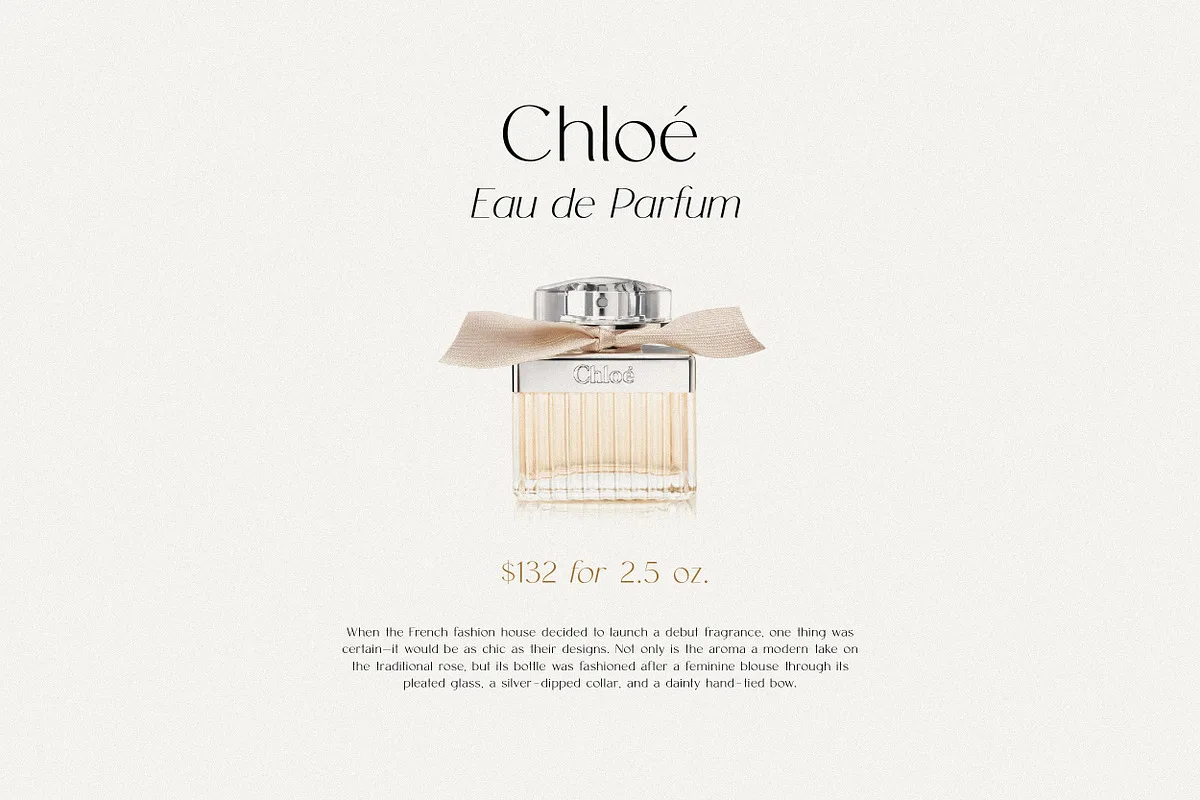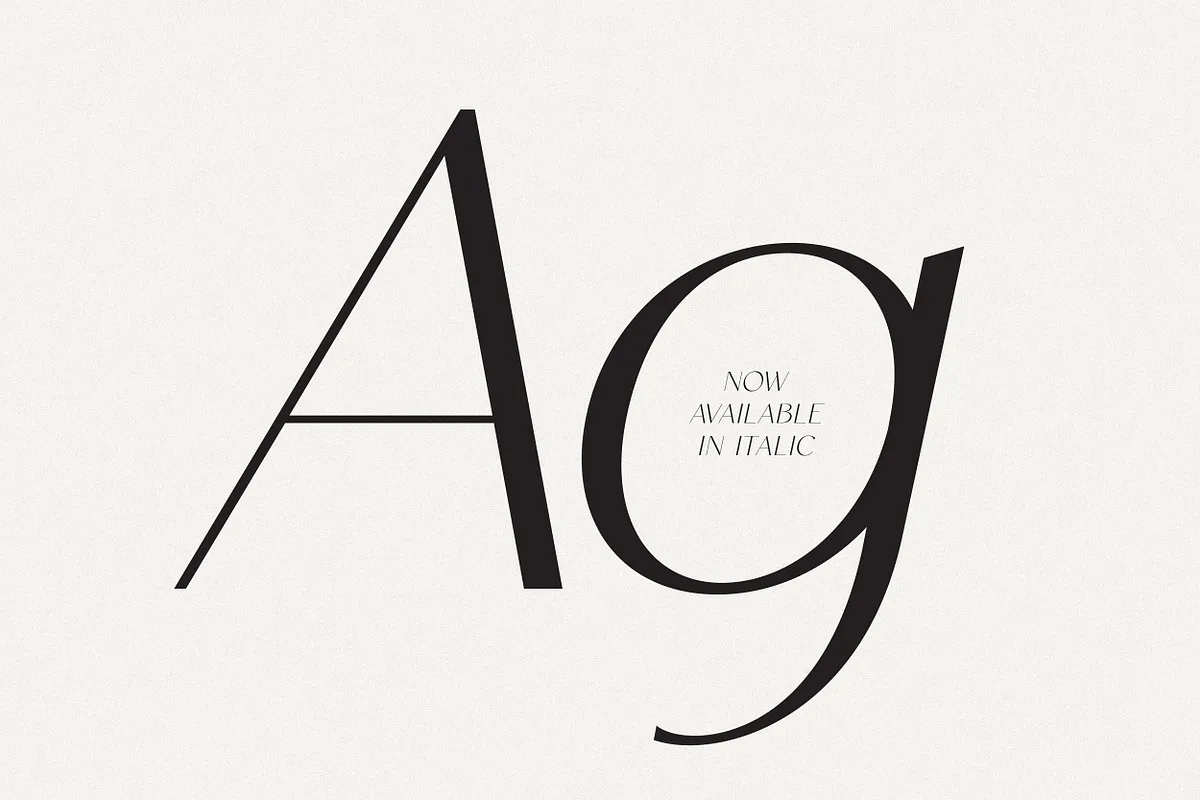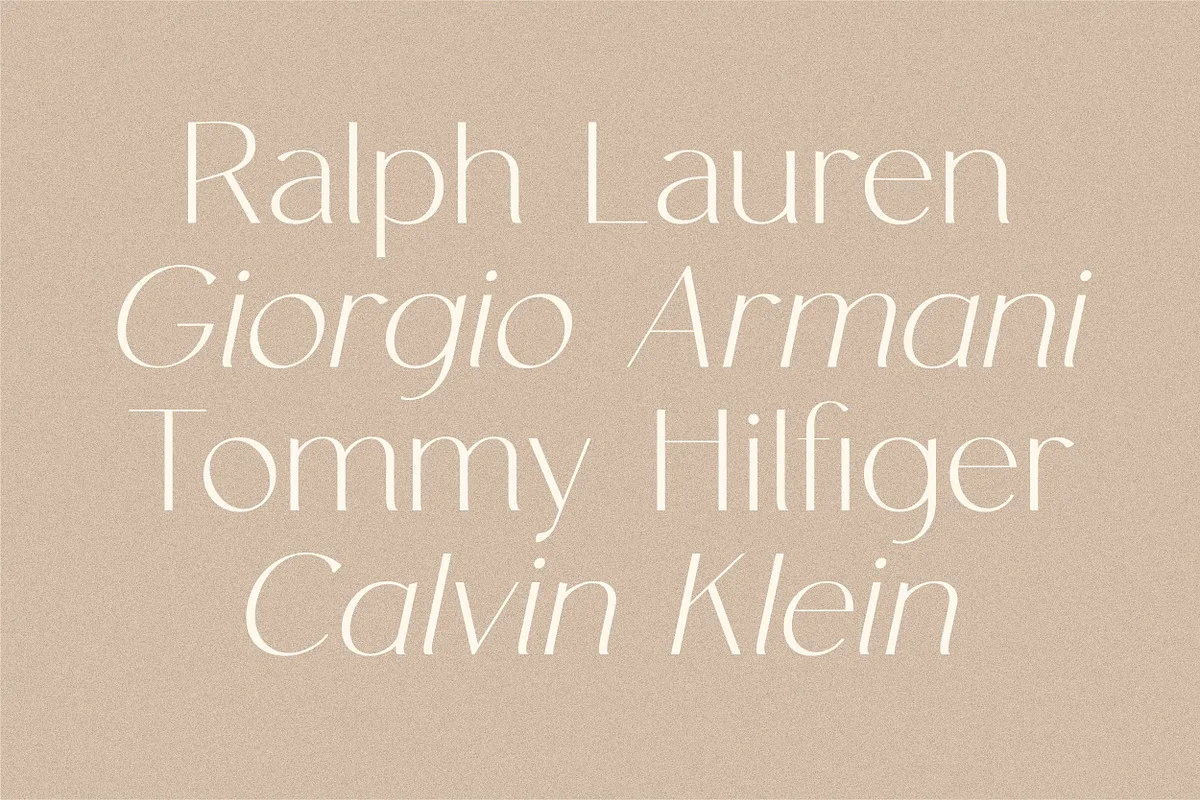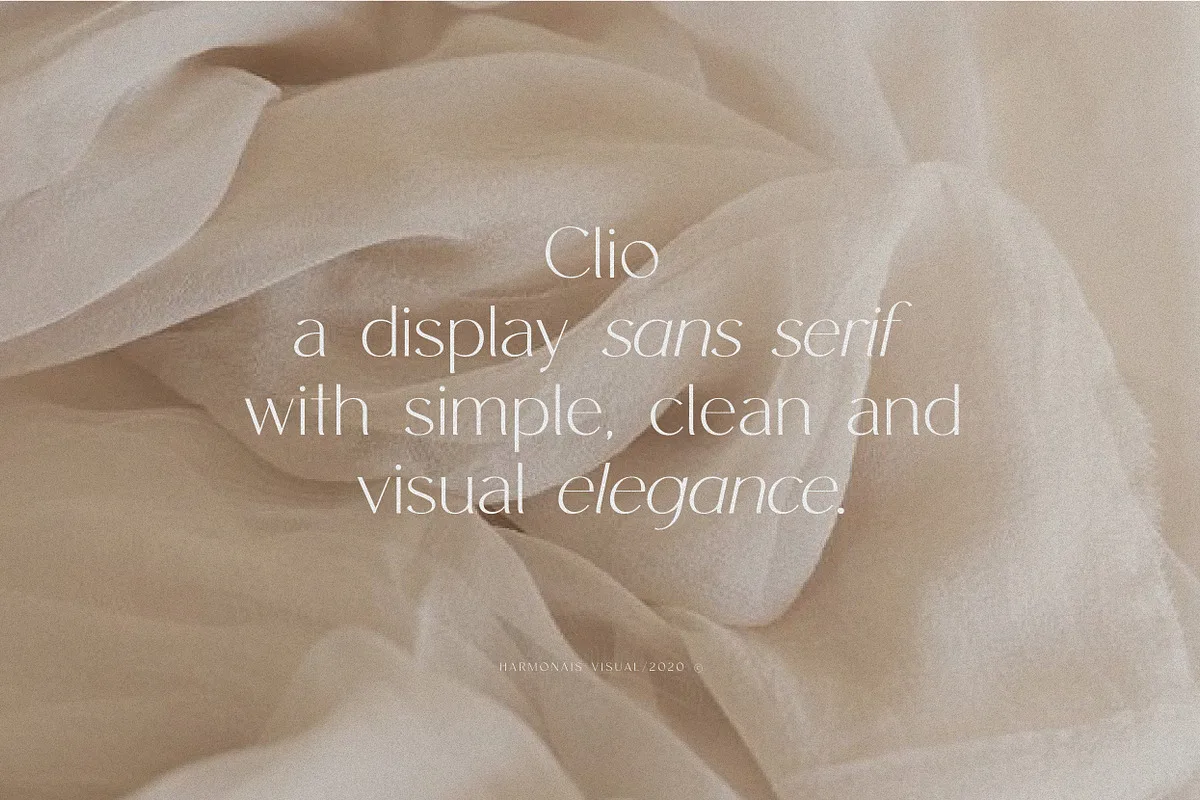
HV Clio is a display sans serif with simple, clean, and visual elegance. Specially designed for elegant-themed projects, perfectly suitable for creating simple, clean, lifestyle designs such as logos, titles, and magazines and more. The font features standard ligatures.
HV Clio Font: Clean Display Sans